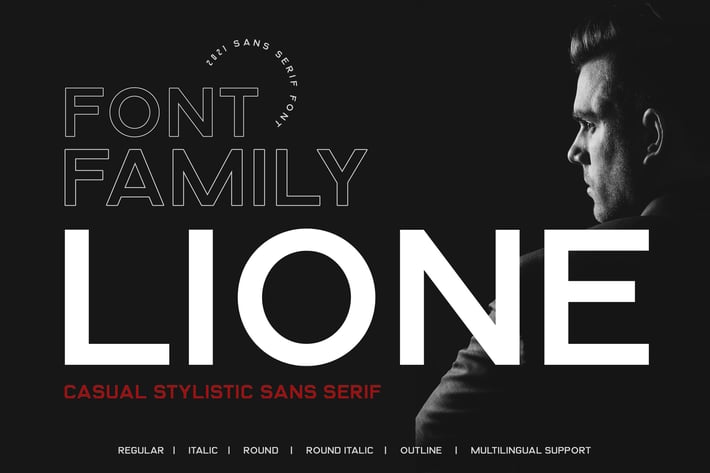
LIONE Business Font Family
LIONE is elegant and modern sans serif font. It can easily be matched to an incredibly large set of projects, so add it to your creative ideas and notice how it makes them stand out! LIONE will perfect for many project: fashion, magazines, logo, branding, photography, invitations, wedding invitation, quotes, blog header, poster, advertisements, postcard, book, websites, etc.